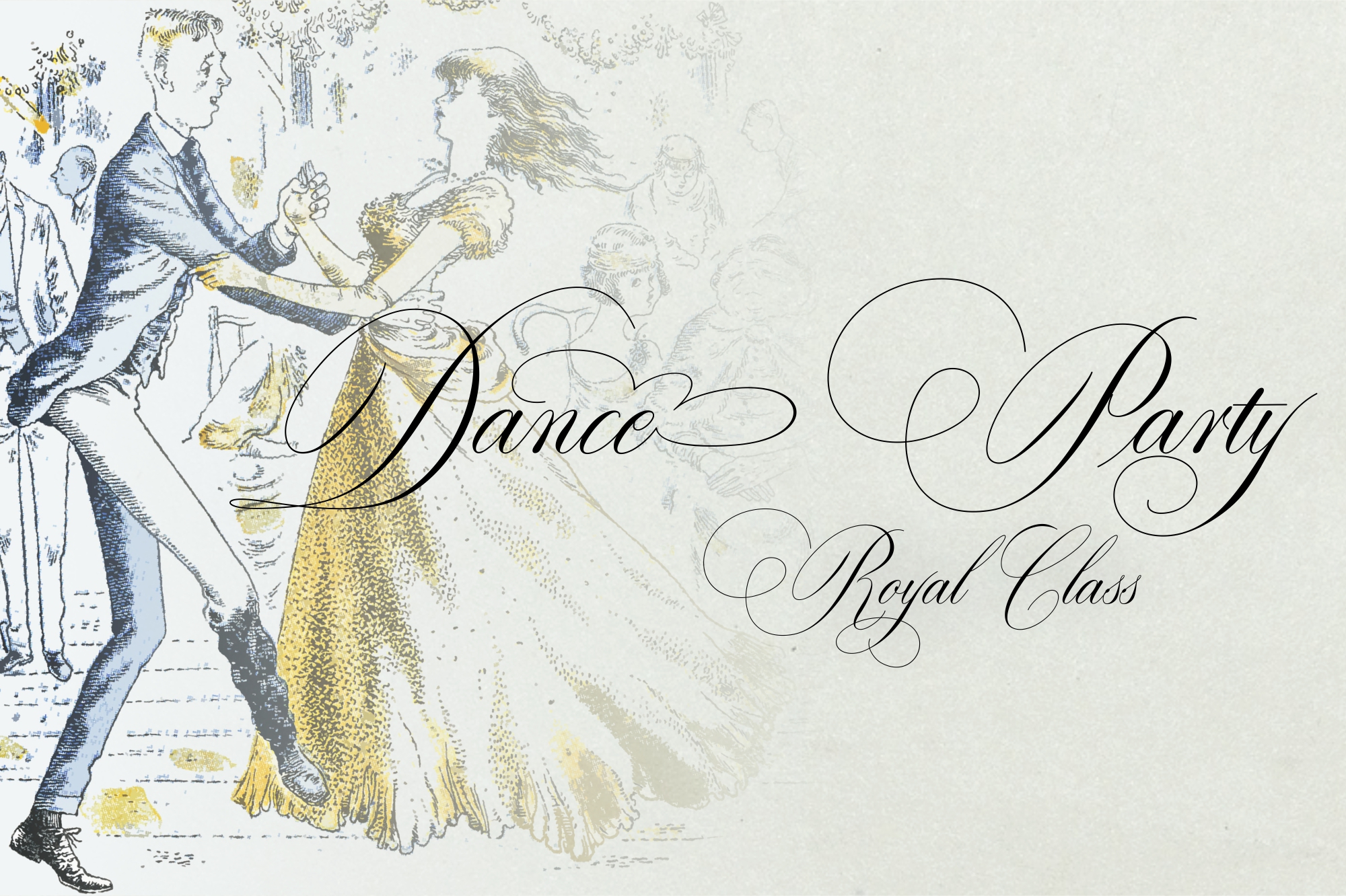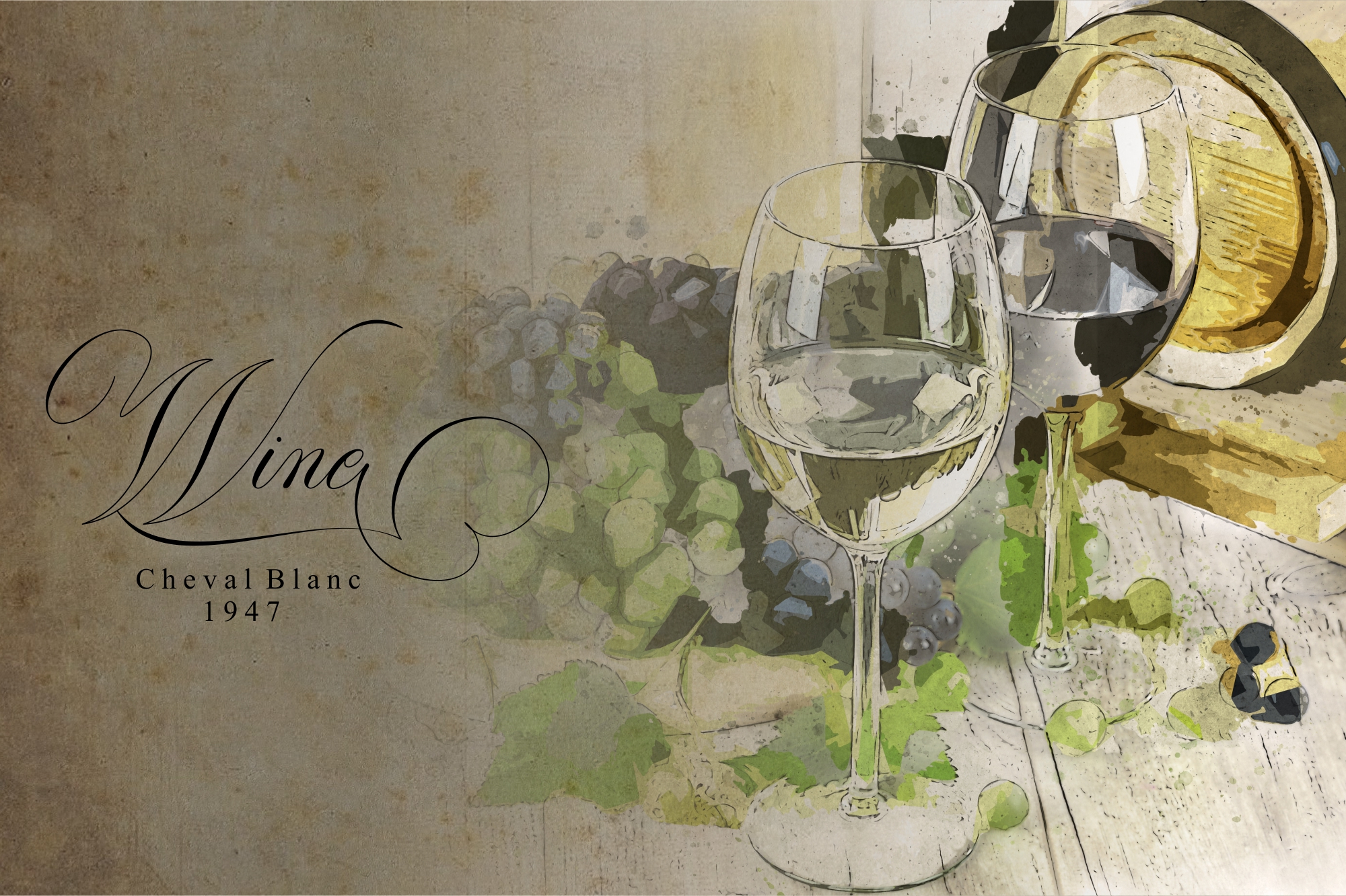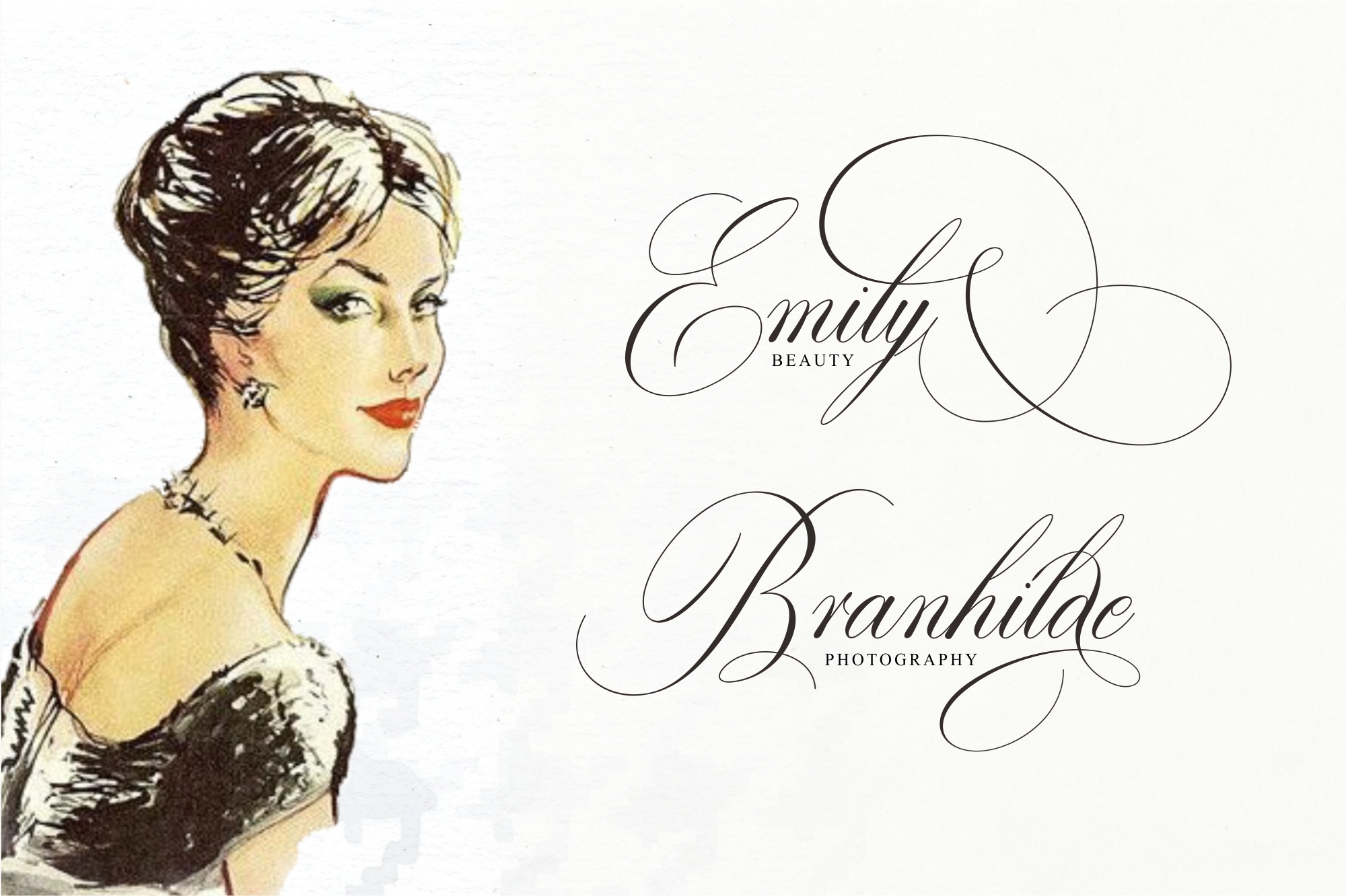
Qubeckmagnetic
Qubeckmagnetic Font
Qubeckmagnetic Script Font
Qubeckmagnetic is a formal font in a slant style. with its OpenType feature, it recreates the handwriting feelings of medieval Italian women. This is a very nice font for editorial and graphic design.
Qubeckmagnetic is perfect for logo projects, wedding invitation cards, branding, home design, product packaging, quotes, logos, book covers, business cards, greeting cards and all other beautiful projects.